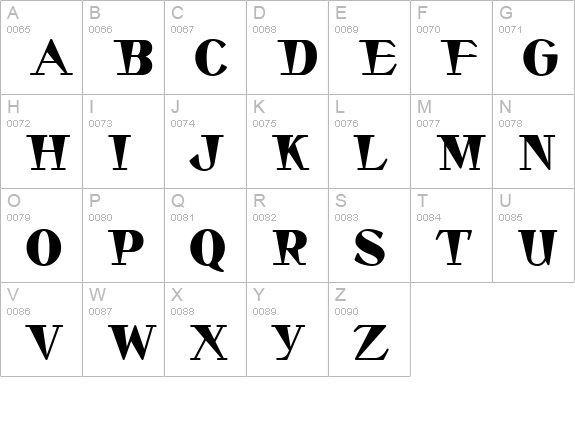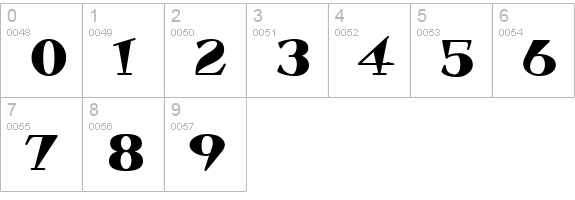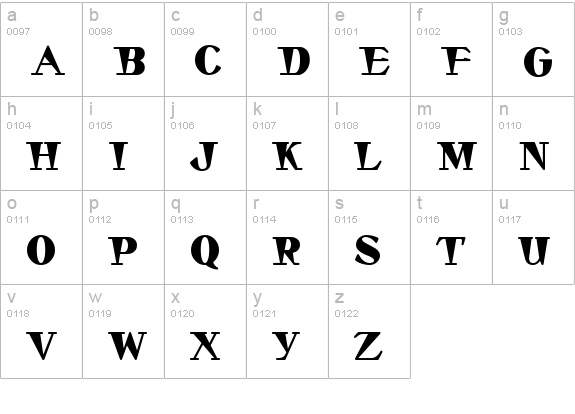
Stella Dallas Font Details
Stella Dallas font is a whimsical and charming typeface that exudes a sense of playful elegance. Its flowing curves and unique letterforms make it perfect for a variety of design projects, from invitations to branding to social media graphics. The font's versatility allows it to be used in both formal and informal settings, adding a touch of personality to any design. What's even better is that Stella Dallas font is available for free download at FontsMarket.com. This means you can easily access this beautiful font and use it in your projects without any cost. So, why wait? Add a touch of whimsy to your designs with Stella Dallas font today!